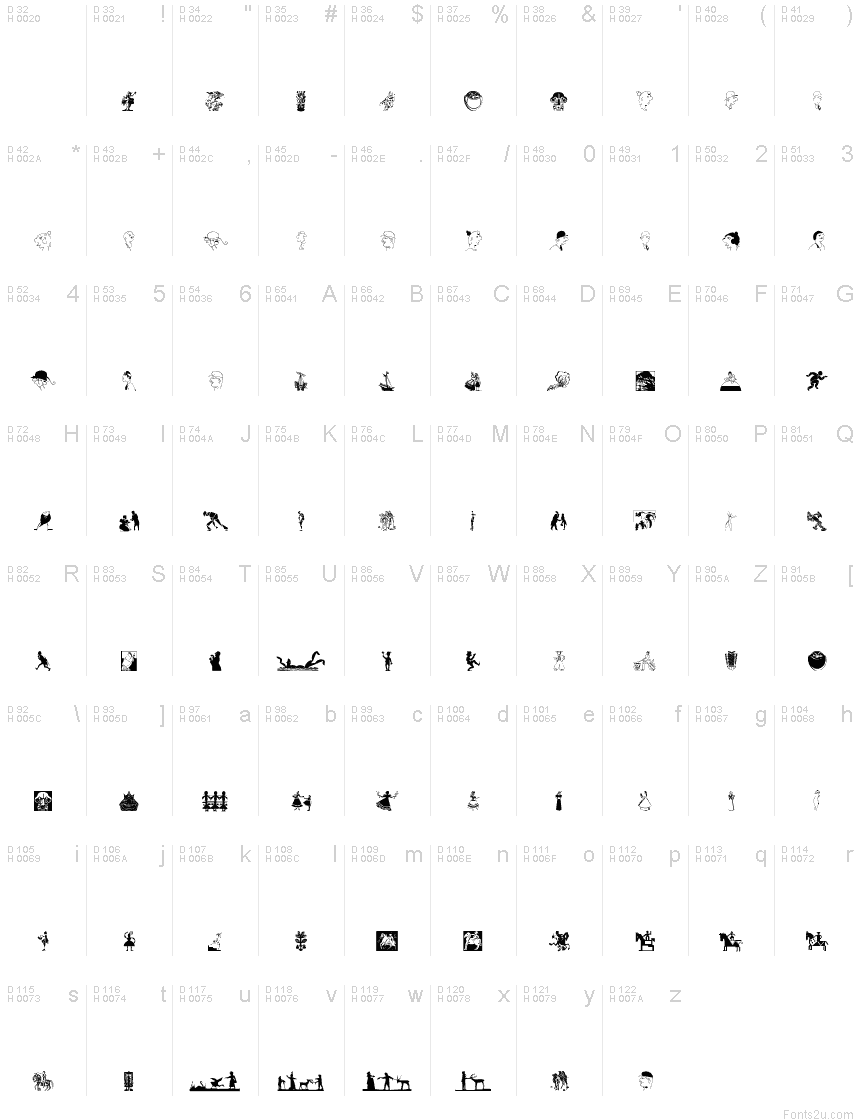
Types Antiques by Manfred Klein is a free antique silhouette dingbat font built from figures, animals, and period scenes. Its solid shapes recall cut-paper portraits and old decorative prints. The collection ranges from poised human profiles to riders and theatrical tableaux, with crisp contours carrying most of the detail.
Its nineteenth-century visual flavor suits historical publishing, museum graphics, and event posters that need imagery with an immediate period reference. On packaging or merchandise, the motifs can function as small emblems for heritage brands, equestrian products, or theatrical venues, turning the font into a ready source of illustrated marks rather than ordinary text decoration.